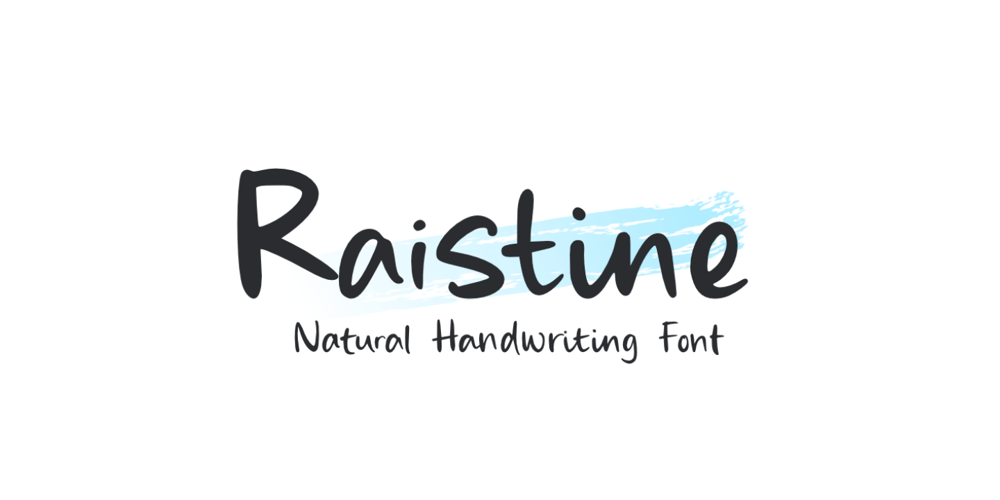
Raistine
Raistine font
Raistine Font Family was designed by Muhamad Yusron Billah and published by Sronstudio. Raistine contains 1 styles and family package options. Introducing “Raistine,” a natural handwriting font that celebrates authenticity with its 150 ligatures. With its organic strokes and genuine feel, this font captures the essence of handwritten text, offering an extensive range of ligatures for added flexibility and charm. Perfect for projects that require a down-to-earth and personal touch, such as greeting cards, journal entries, or organic branding. “Raistine” infuses your designs with a sense of authenticity and warmth, ensuring they stand out with a natural and genuine vibe.Features: 150 Ligatures Uppercase & Lowercase Numeral & Punctuation PUA Encoded Multilingual support Simple Installation Work both on Mac and Windows Thank you very much 🙂